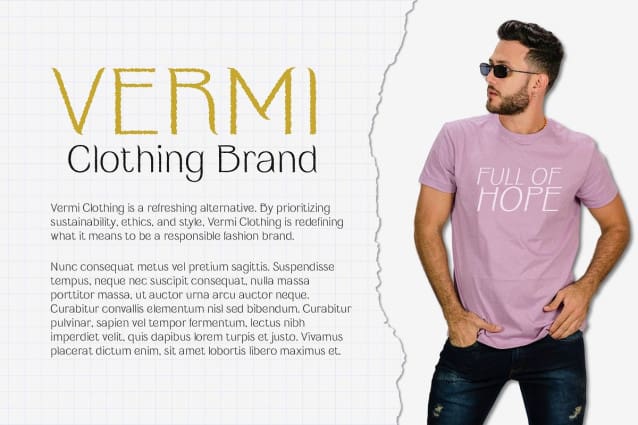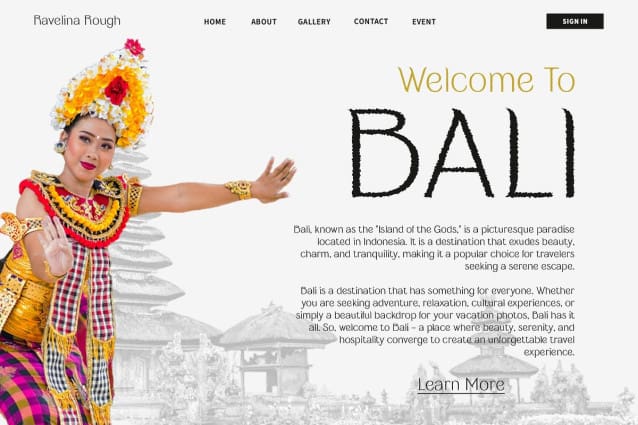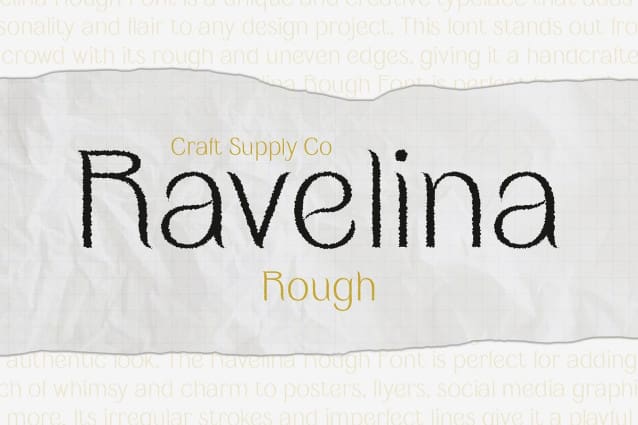
Ravelina Rough Font
Ravelina Rough Font is a modern serif font that strikes a balance between elegance and roughness. Its unique design adds a touch of sophistication to your projects while retaining a rough, edgy vibe that demands attention.
Ideal for Impactful Displays Designed to make an impact, Ravelina Rough is perfect for headlines, banners, and other display purposes. Its elegant yet rough aesthetic ensures that your message is seen and remembered.
Versatile and Stylish Despite its rough vibe, Ravelina Rough is versatile and stylish. Its modern serif design makes it suitable for a wide range of projects, from branding to editorial design, where a font with character and charm is needed to make a statement.
Perfect for Adding Character Ravelina Rough is perfect for projects that require a font with character. Whether you’re designing a logo, poster, or website, this font is sure to add a unique and memorable touch to your designs.